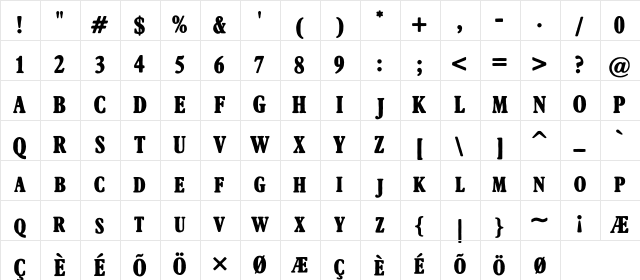
Afton James Regular
| Foundry | S. John Ross |
| Designer | S. John Ross at the Cumberland Fontworks |
Design Context for Afton James Typeface
Afton James takes a measured approach to typography — its balanced proportions and neutral character make it a reliable workhorse for both digital and print work.